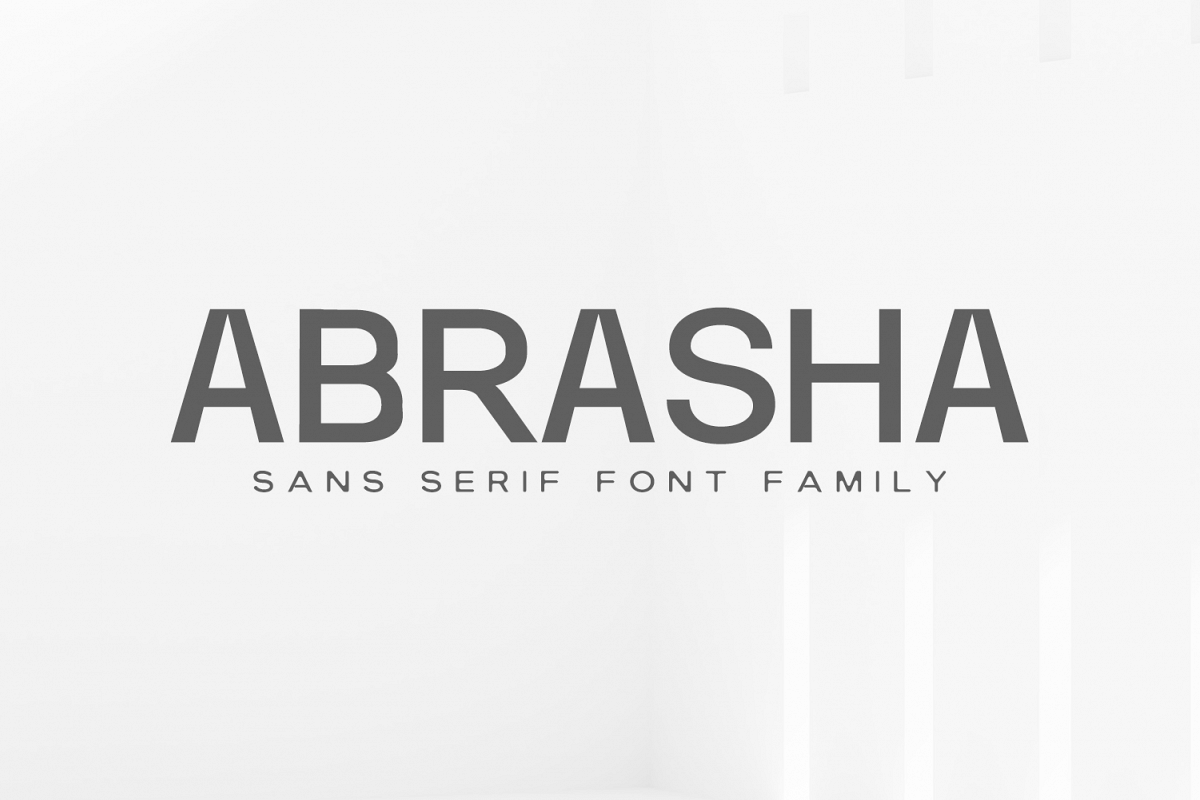
Abrasha Sans Serif Font Family
Abrasha is a minimal rounded sans serif typeface that looks beautiful in every context. It comes with 3 weights. Abrasha is perfect for logos, invitations, texts, presentations, magazine, posters, notices, titles, name card, web layouts, headers, branding, weddings, social media, product design, stationery and advertising, and other any business related.
• Font Weight: Regular, Round and Smooth
Font Features:
• Uppercase Letters
• Lowercase Letters
• Number and Punctuation